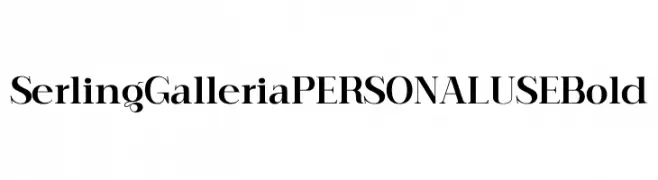
A playful and elegant script font with fluid, connected letterforms.
A bold, retro arcade-inspired font with geometric and angular characters.
An elegant, flowing script font with graceful curves and a sophisticated slant.
A bold, geometric font with tall, narrow characters and sharp angles.
A bold, italicized font with a striped, gradient design conveying speed and modernity.
A high-contrast, elegant font with dramatic flourishes and refined style.
A bold, playful handwritten font with dynamic strokes and lively curves.
A bold, geometric display font with abstract shapes and intricate patterns.
A dynamic, cursive script font with bold, flowing strokes and lively contrast.
A dynamic and fluid script font with elegant, flowing lines and smooth curves.
设计师偏爱 Untilnow-script, ARCADE-Inverse, Putih Jasmine demo, Porton Bold and '89 Speed Affair Gradient2Ital,因为其造型干净、适用范围广—— 从品牌识别到落地页、海报都能胜任。